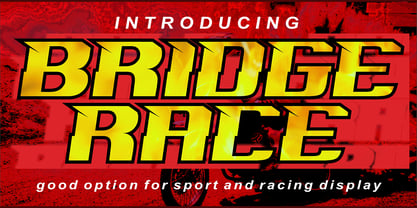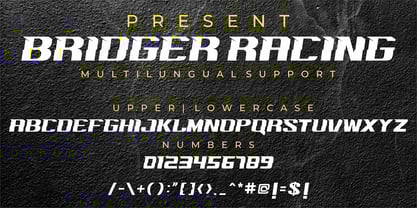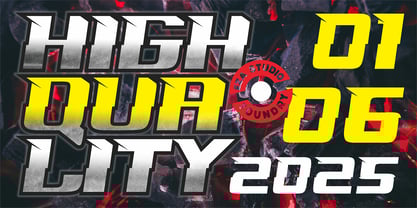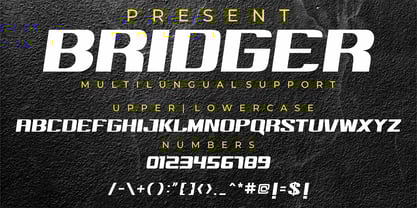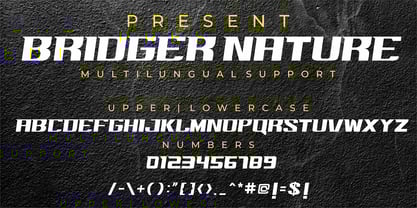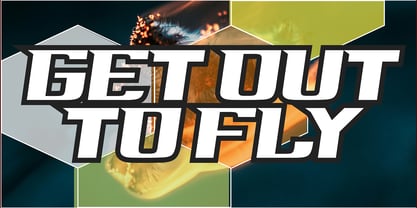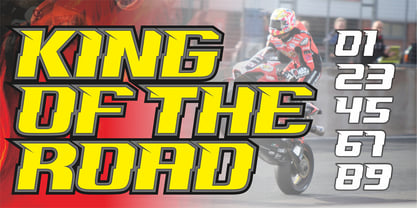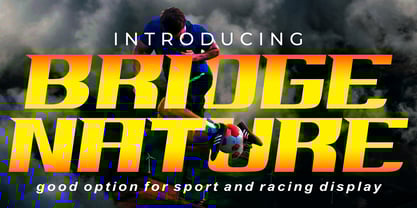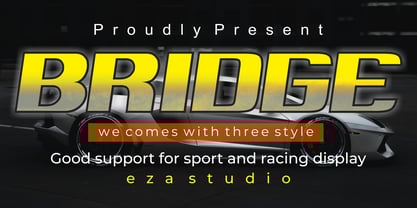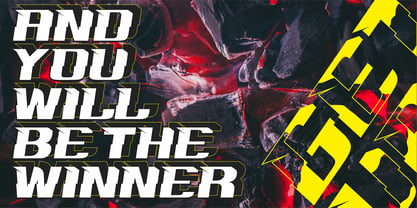
Bridger
by Eza Studio
The Bridger Font Family was designed by Aziz Mirza and published by Eza Studio. Bridger contains 3 styles and family package options. More about this family
I recommend you to pay attention to the font "BRIDGER". This font has three bold variations, with sharp corners, spurs, and slants for a dynamic effect. The font "BRIDGER" has a unique appeal and is easy to read visually, making it perfect for news headlines, whether for sports events, automotive posters, logos, or monogram designs.
Designers: Aziz Mirza
Foundry: Eza Studio